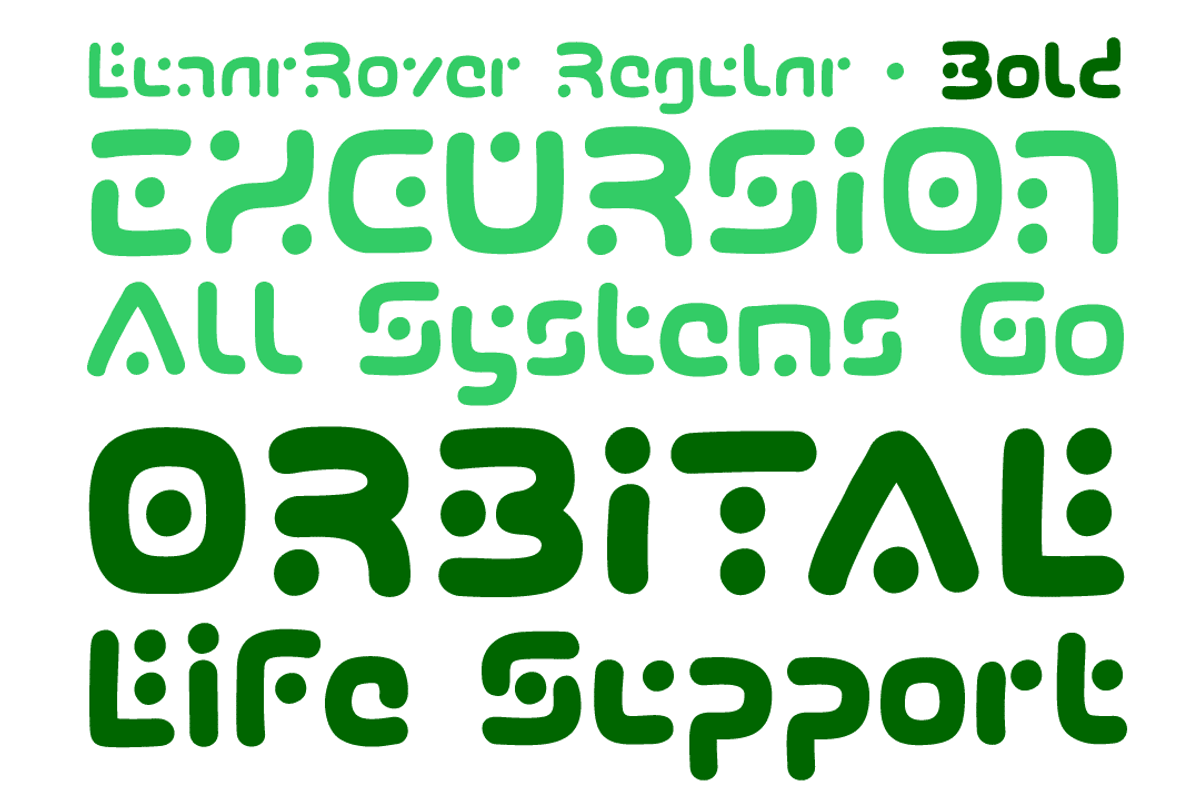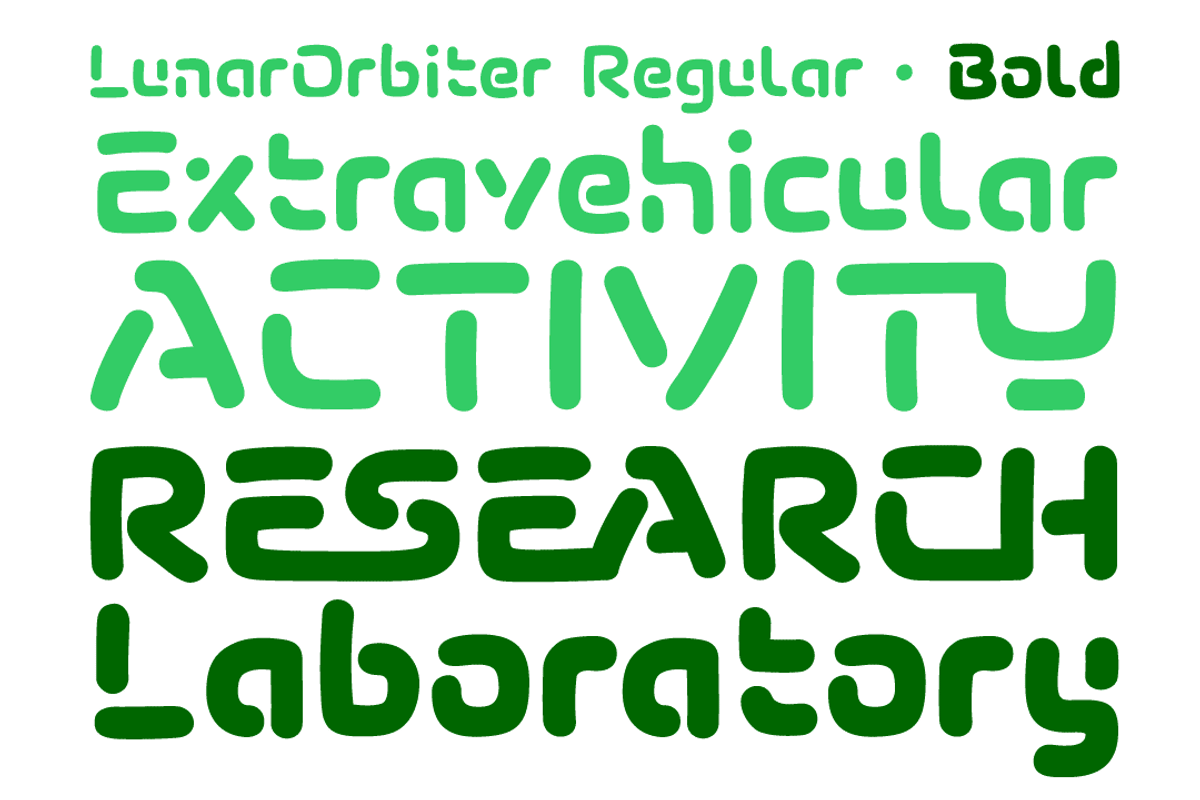
Lunar Modular hand drawn sci-fi font
Lunar Modular hand drawn sci-fi font by Comicraft Fonts is a font selected for branding, posters, packaging, typography.
- Opentype version of Orbiter also includes 52 auto-ligatures.
Why Lunar Modular hand drawn sci-fi font is worth a look
Lunar Modular hand drawn sci-fi font by Comicraft Fonts fits naturally into Branding, posters, packaging, typography.